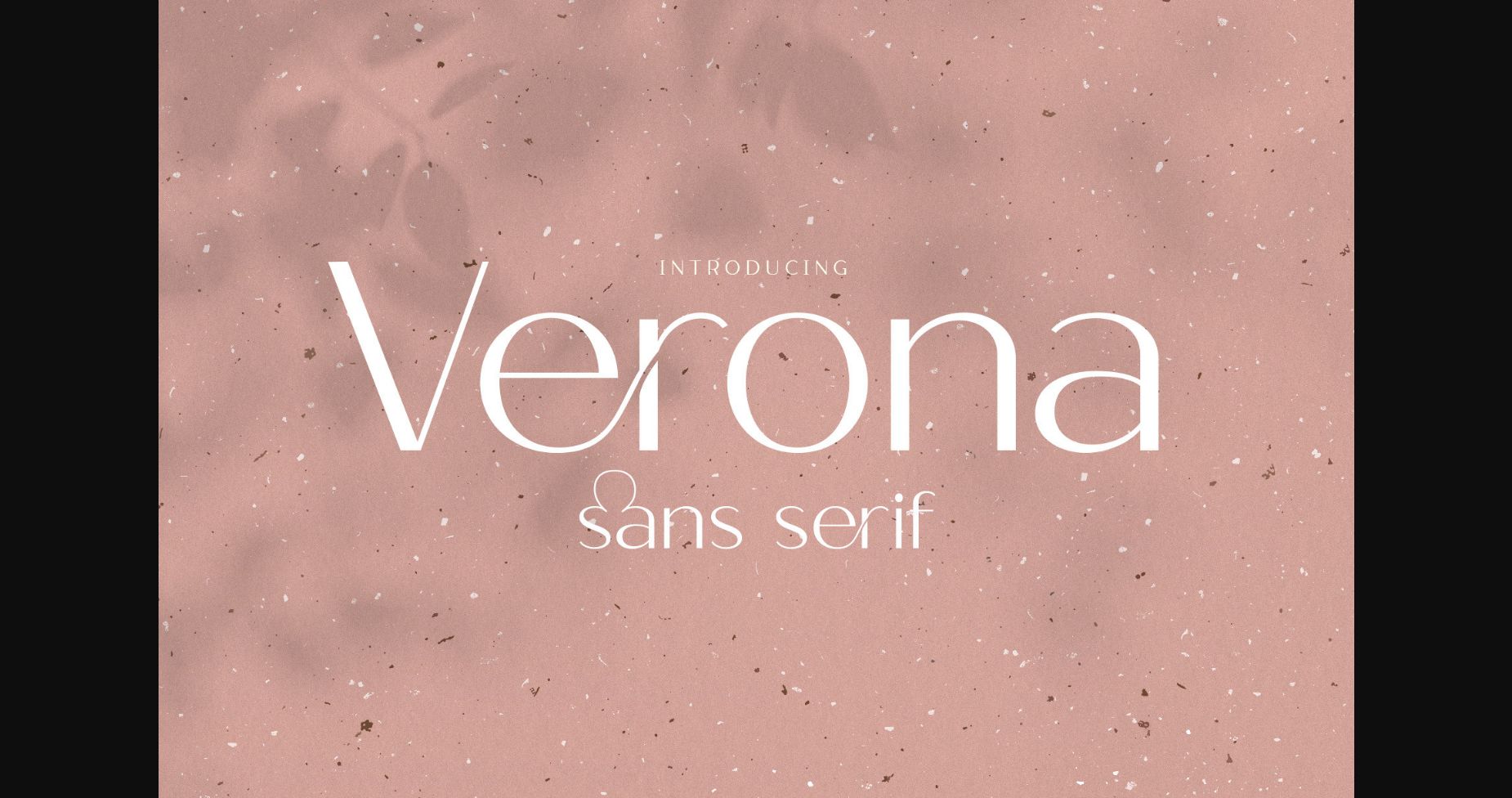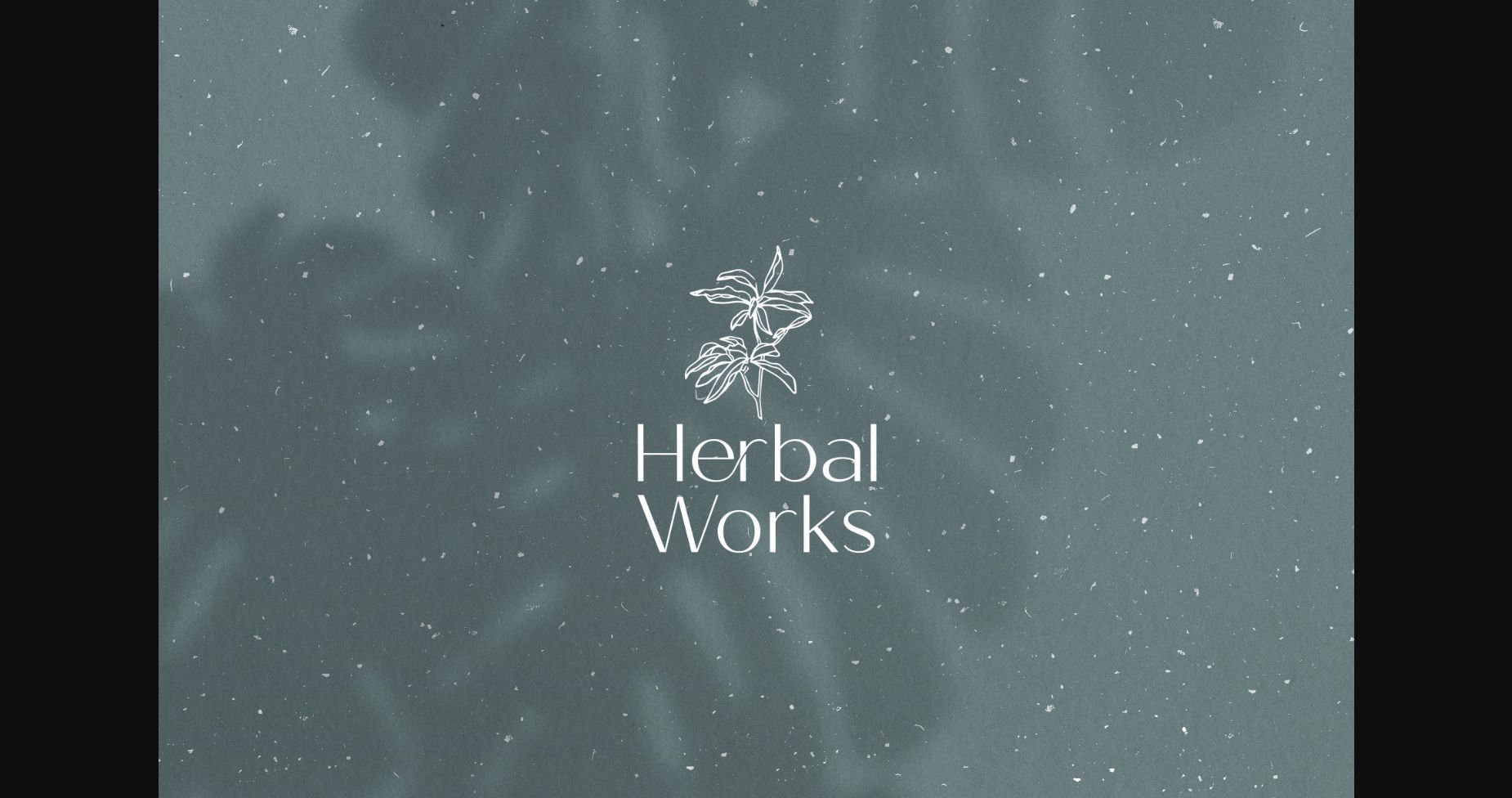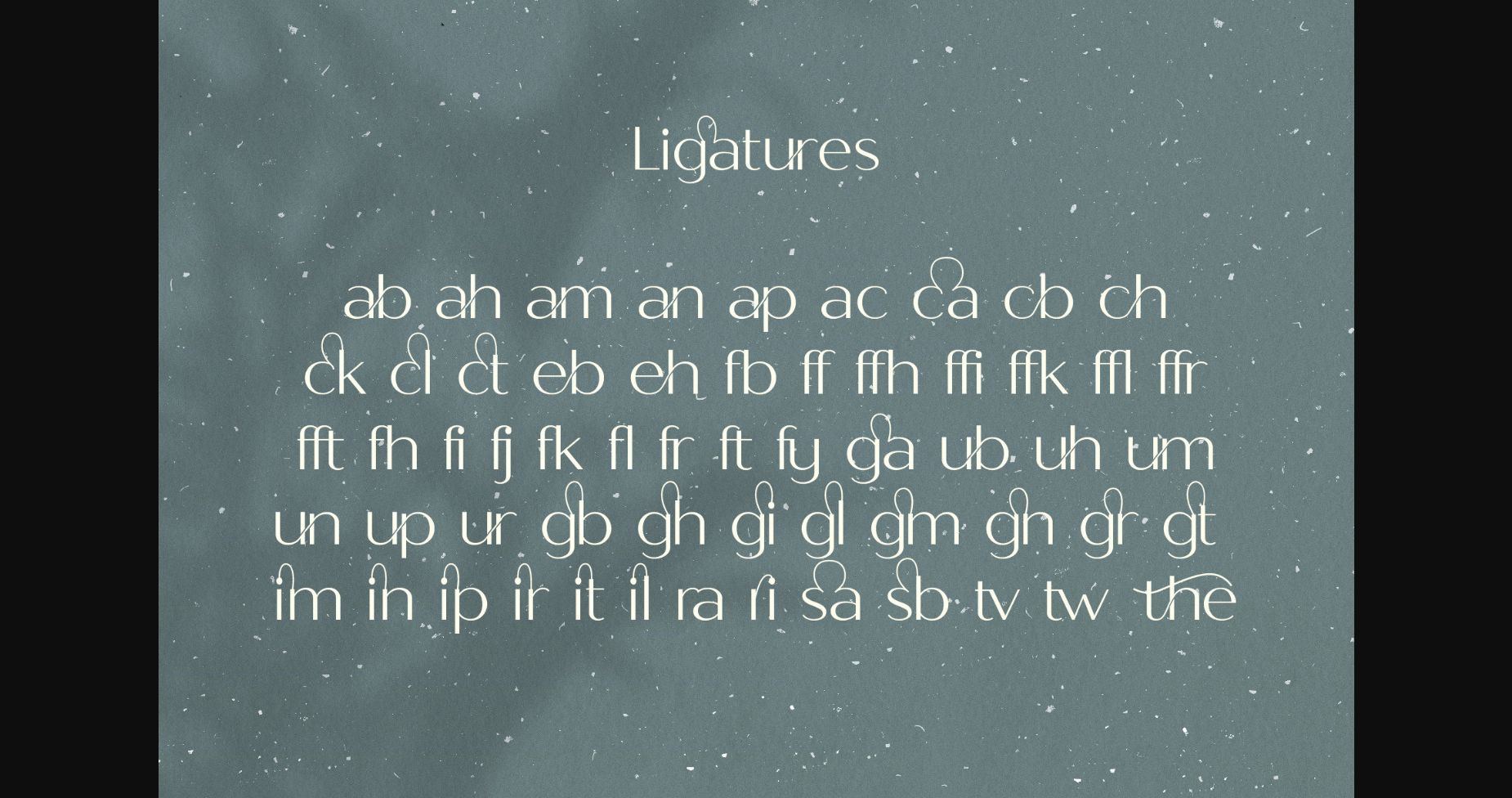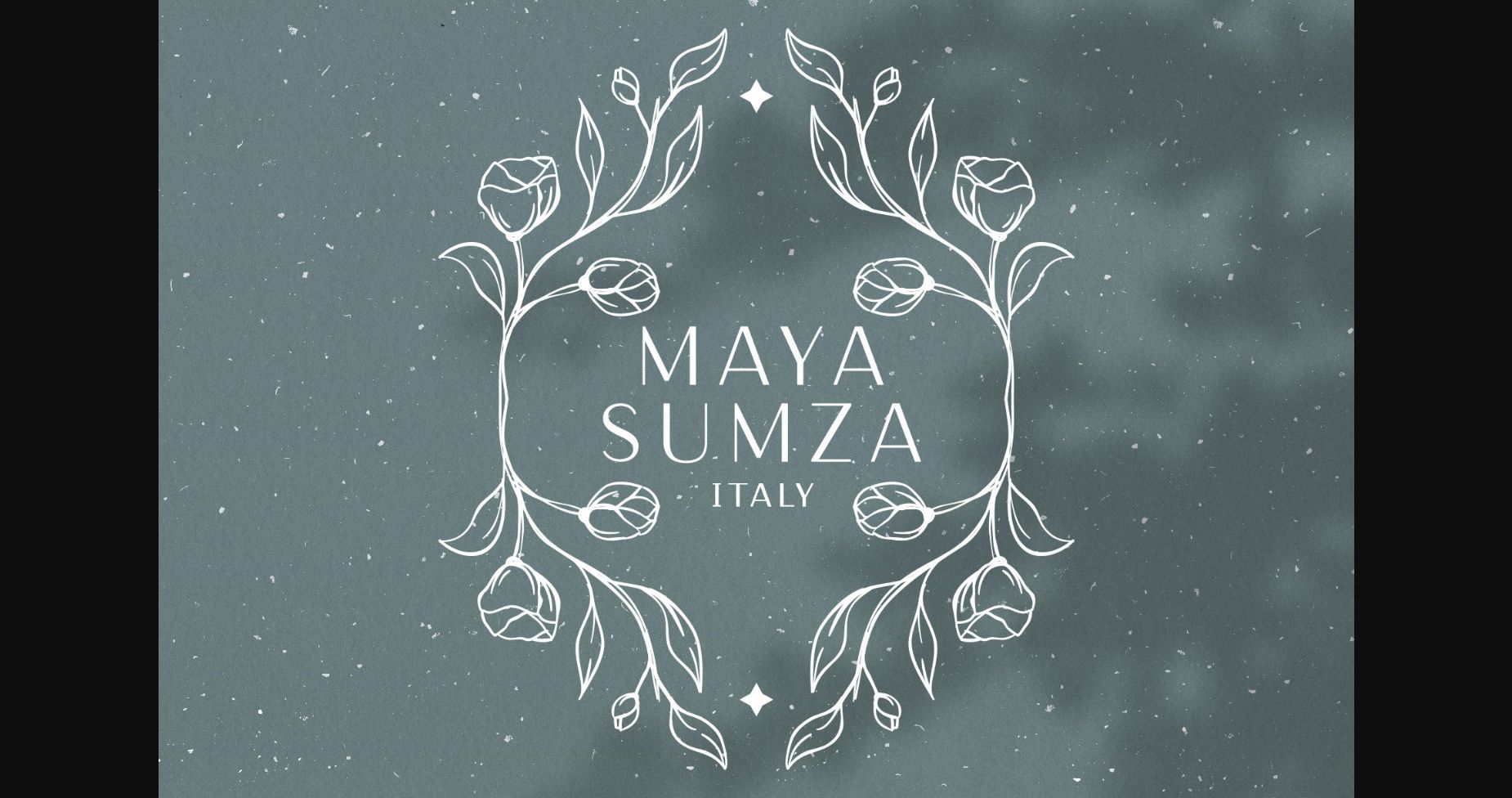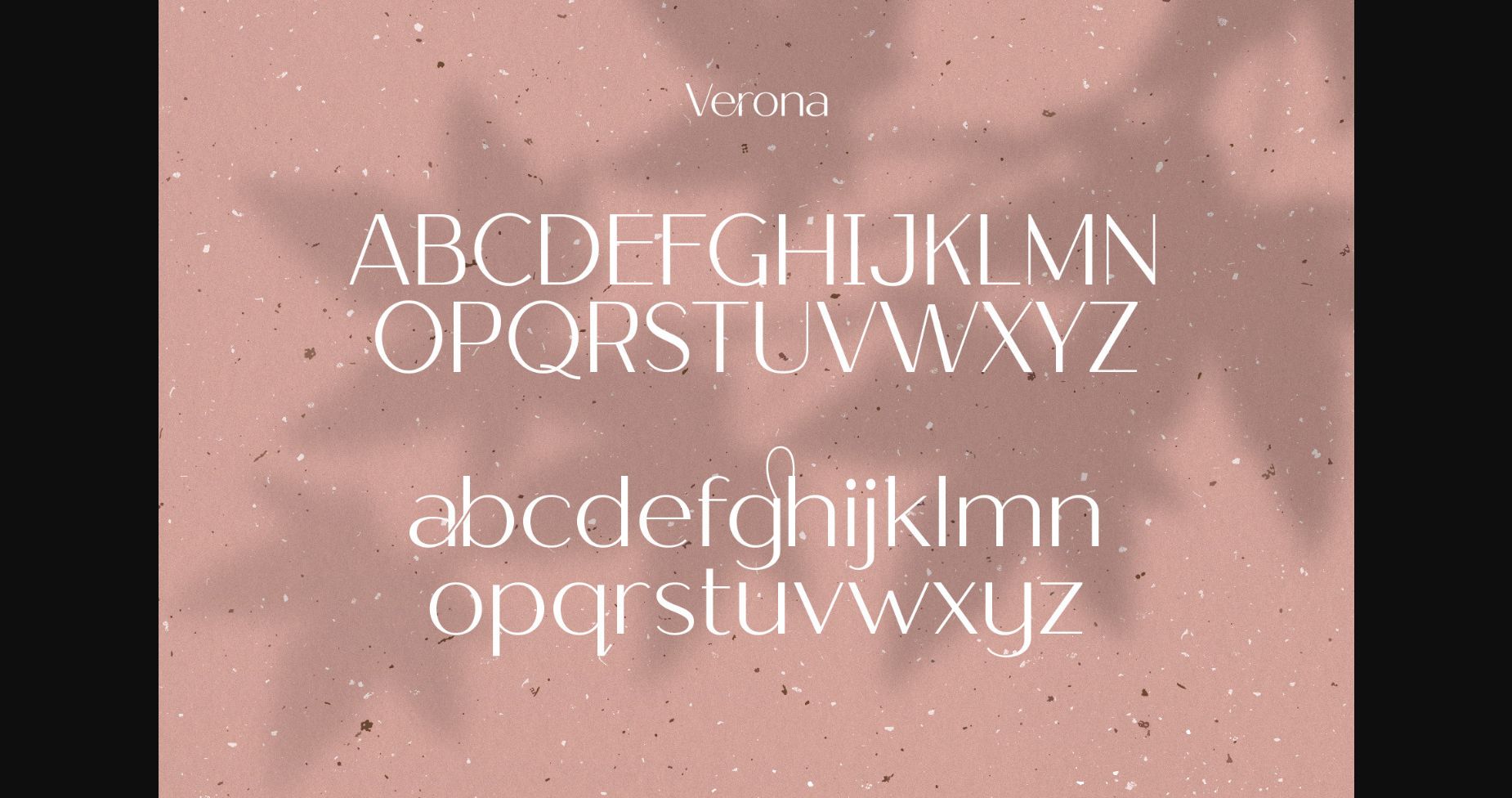
About Verona Font
Verona is an elegant sans serif font. It is ideal for branding, logos, invitation, print, fashion, editorial design, social media, and more. This font pairs well with various modern creations. It is PUA encoded which means you can access all of the amazing glyphs and ligatures with ease!